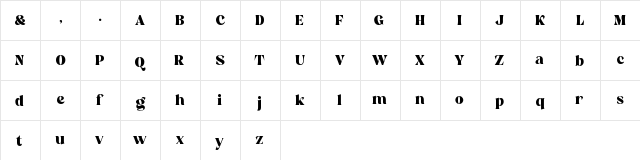
Reikna Regular
Regular · Kulokale Studio M Arif Dwi Prasetyo & Eko Nurcahyo ·
Foundry Kulokale Studio
FoundryKulokale Studio
DesignerM Arif Dwi Prasetyo & Eko Nurcahyo
Design Context for Reikna Typeface
Reikna is a composed and adaptable typeface that performs quietly and consistently across a wide range of design contexts.